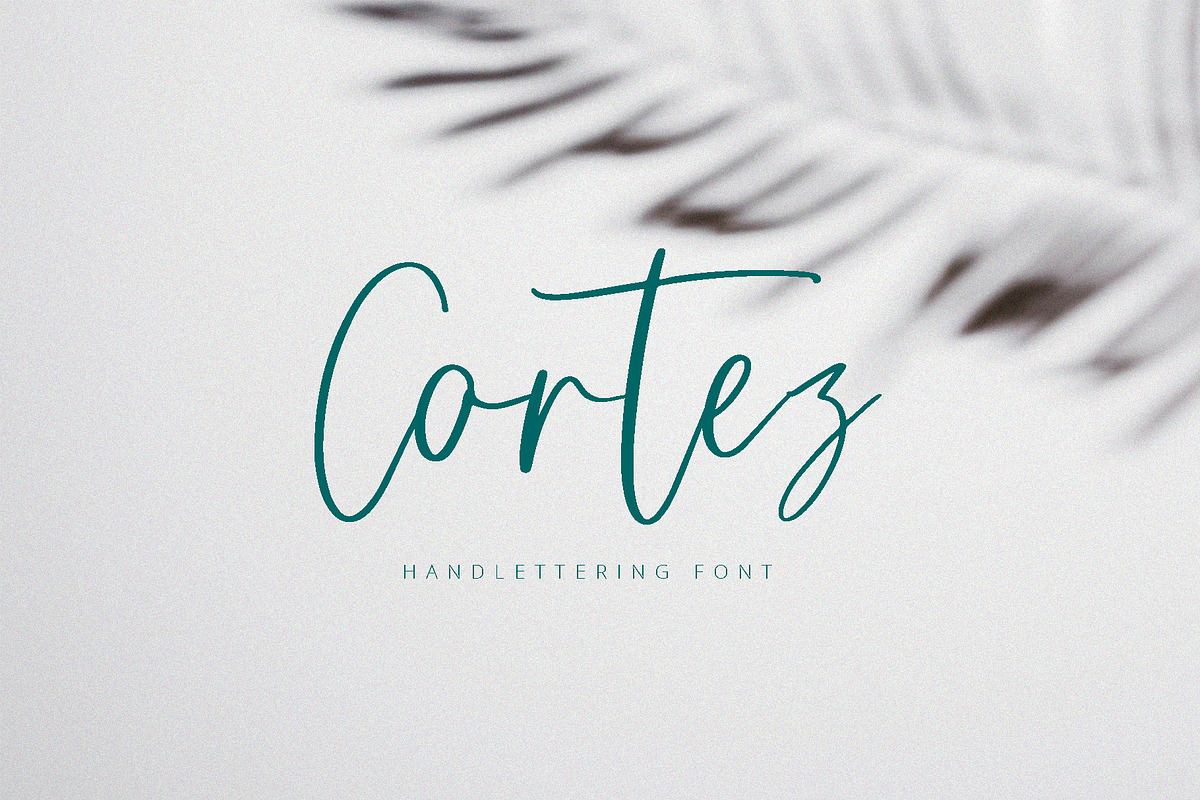
Cortez | Handwritten Font Free Download is a stylish and expressive typeface that captures the natural charm of real handwriting. With its casual flow, varied line thickness, and authentic pen-stroke details, this font is perfect for personal branding, lifestyle blogs, social media graphics, invitations, and handwritten-style logos.
Cortez | Handwritten Font Free Download adds a relaxed and personal feel to any design, helping you create warm, relatable visuals that connect with your audience. It’s versatile enough for both print and digital projects, and works beautifully in quotes, packaging, and creative content.